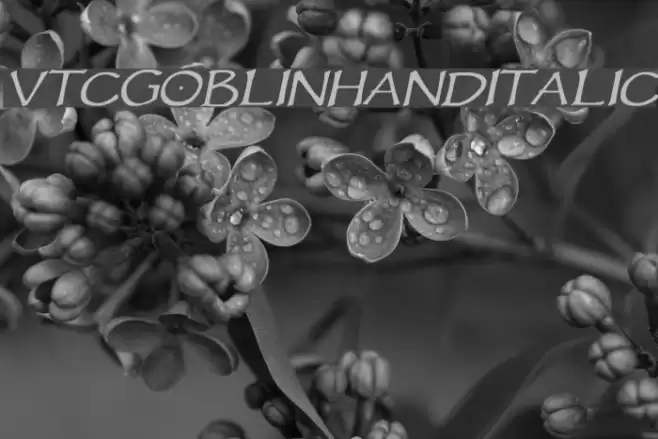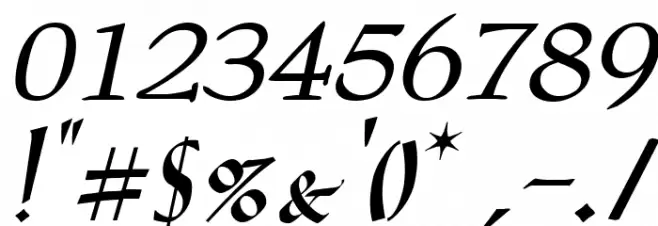
VTCGoblinHandItalic Font
VTCGoblinHandItalic Description
This font exhibits a dynamic and energetic style, characterized by its sharp, angular strokes and italicized slant. The letters have a hand-drawn quality, with varying stroke widths that add a sense of movement and flair. The uppercase and lowercase letters maintain a consistent style, with the uppercase being more pronounced. The numerals are bold and distinctive, matching the overall aesthetic of the alphabet. Special characters are creatively designed, complementing the font's unique appearance. This font is ideal for projects that require a bold and unconventional look.
A dynamic, italicized font with sharp, angular strokes and a hand-drawn quality from Uncategorized fonts.